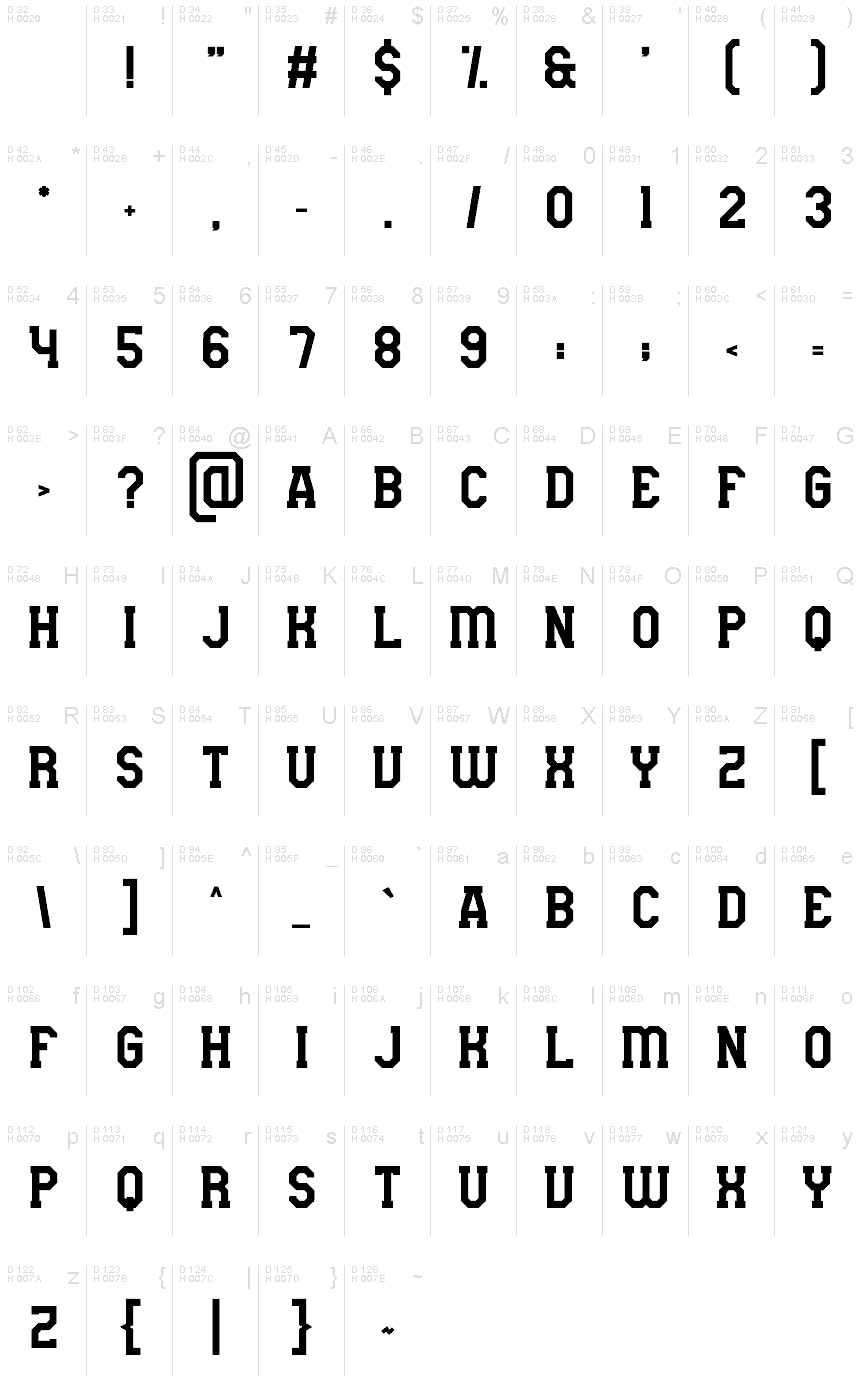
BASEBUL
Basebul font is a free display font with an old-school essence reminiscent of vintage baseball, collegiate sport, and industrial signage. Designed by Gilang Ternadho of Maikohatta, it conveys power and toughness pushed through uniform letter width and geometric design while keeping everything clear even in smaller sizes.
Great for displaying titles in logo designs for sport clubs, souvenirs of your favorite teams (dodger?), book titles, children’s illustrations or comics, sign boards… you catch the drift. Stylish all-caps letterform with numbers and punctuation included for FREE!